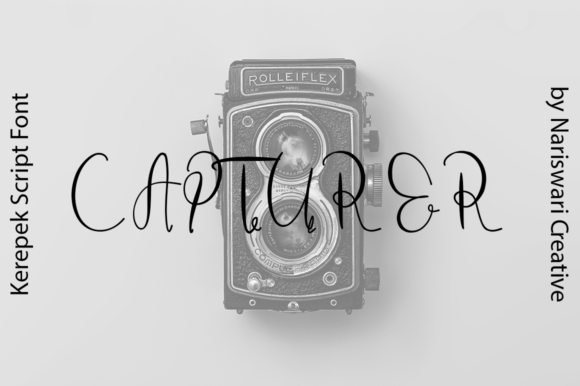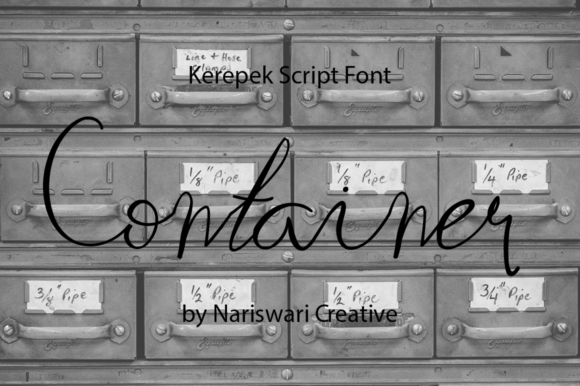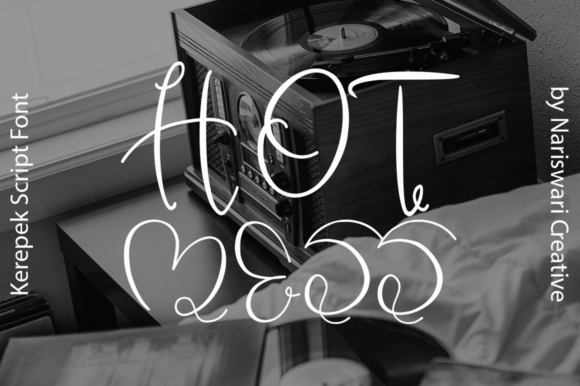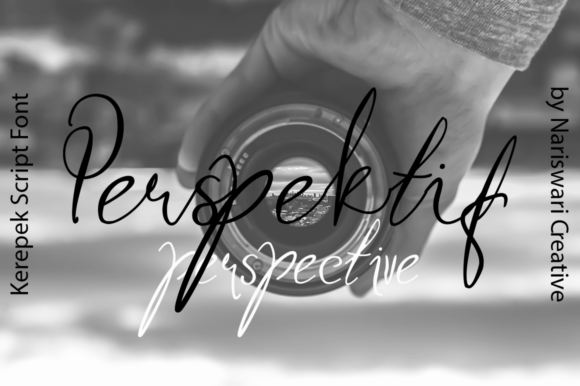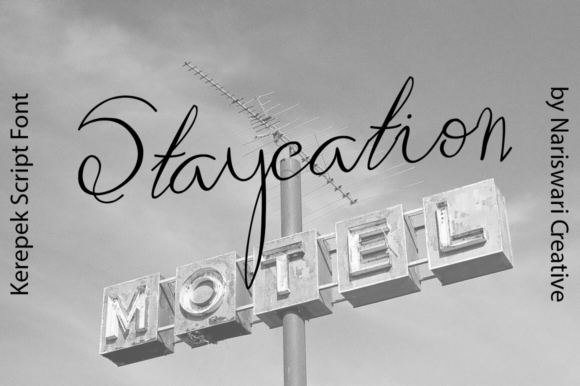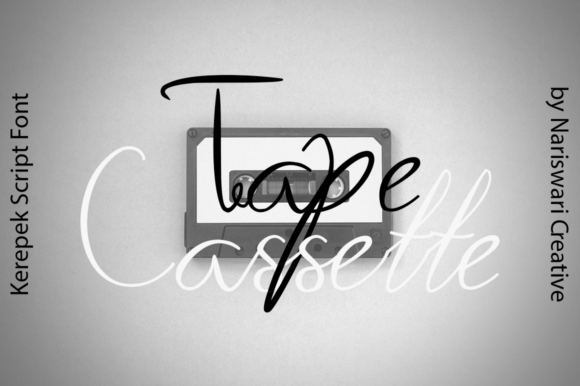
Introduction to Kerepek Font
Kerepek is a modern handwritten font, carefully handcrafted to become a true favorite.
Its casual charm makes it appear wonderfully down-to-earth, readable and, ultimately, incredibly versatile Kerepek will look outstanding in any context, whether itโs being used on busy backgrounds or as a standalone headline.
Key Features of Kerepek Font